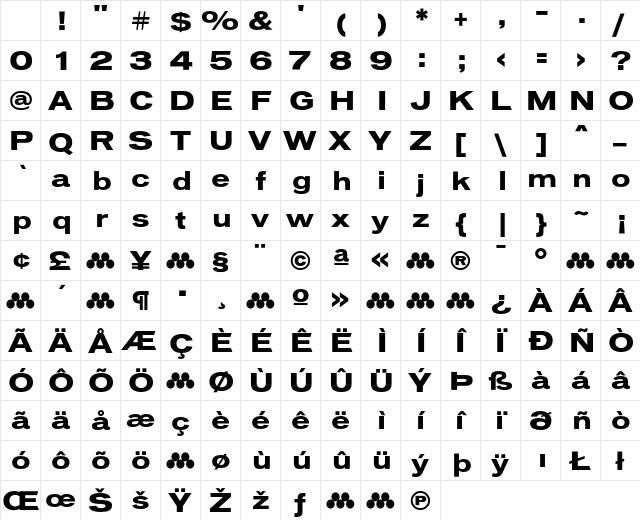
VonnesTTBoldExt is a composed and adaptable typeface that performs quietly and consistently across a wide range of design contexts. Its bold stroke weight gives it real presence on the page.